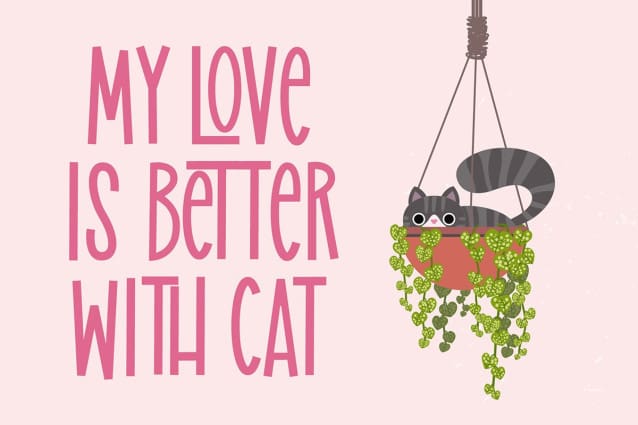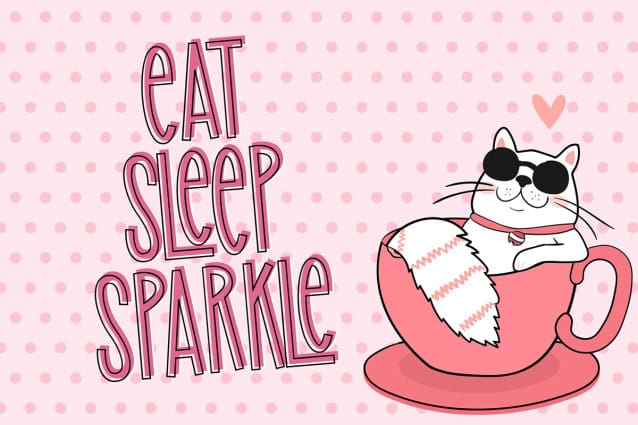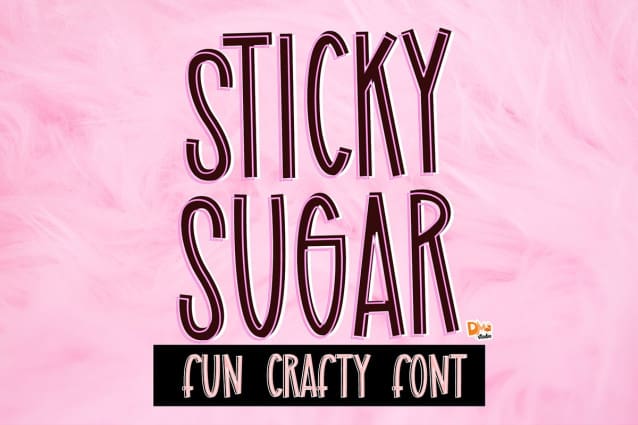
Sticky Sugar Font
Sticky Sugar Font ! This is a clean, fun monoline tall font. Great for your crafting design, for logo, for social media posts, quote, sticker, t-shirt, cutting, sublimation or silhouette crafts, svg and much more! Sticky Sugar fun crafty font contains two versions of font : Regular for solid version and Outline version. It also have two different height, uppercase for the taller version and lowercase for the lower version. Hope you enjoy this Sticky Sugar – fun crafty font, check out for another new product from our store!